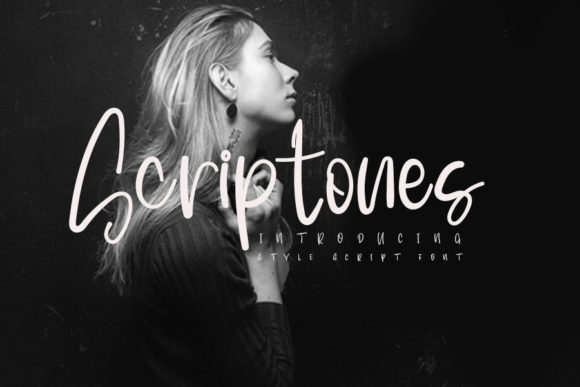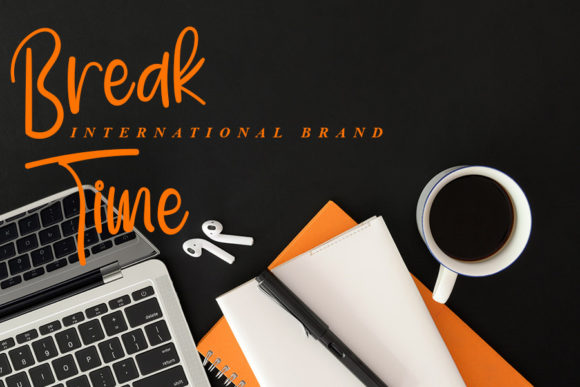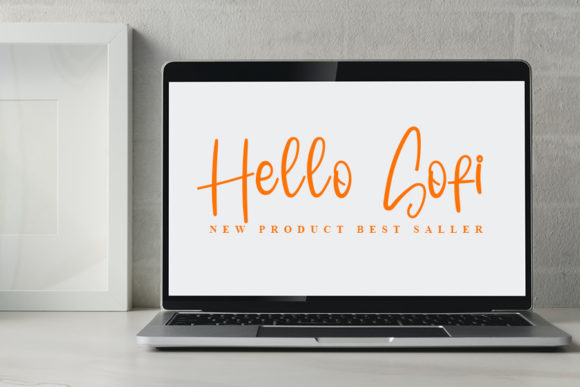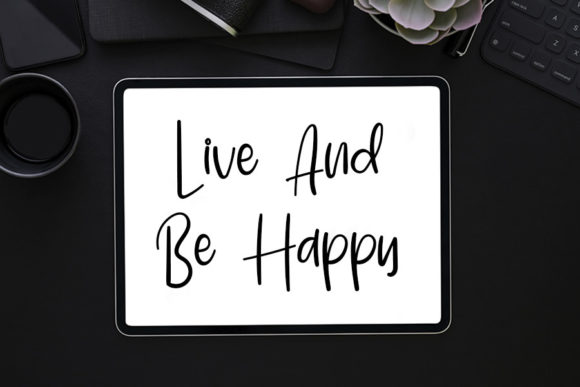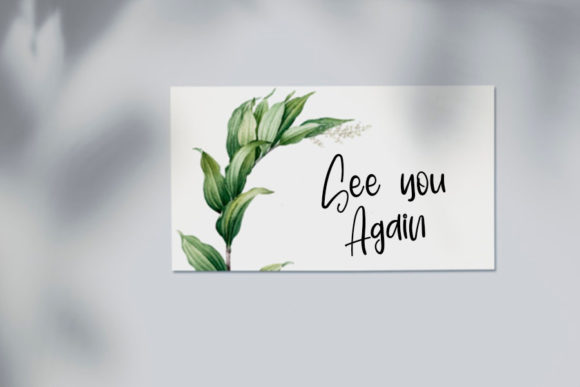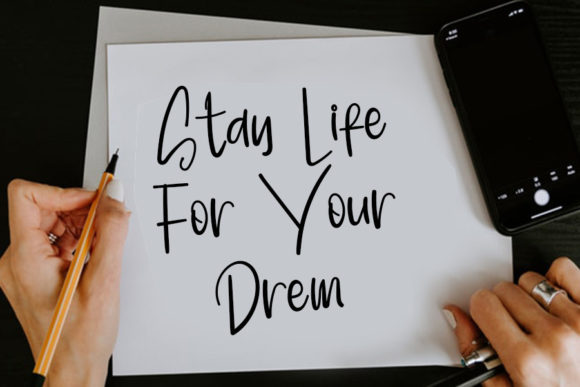
Scriptones Font
About Scriptones Font
Scriptones is a cool and fashionable handwritten font. It can be used for various purposes such as logos, wedding invitations, headings, t-shirts and much more.